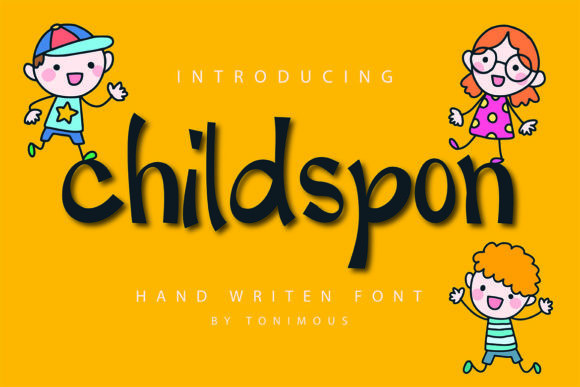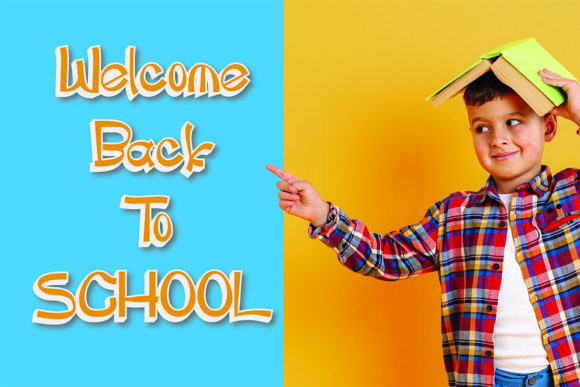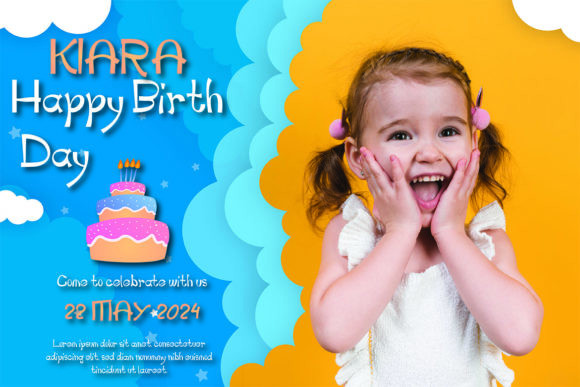
Childspon Font
Childspon is cute and playful, but also elegant. This versatile script font has a wide range of applications, ranging from greeting cards to headlines, and is guaranteed to add a magical touch to your next design.